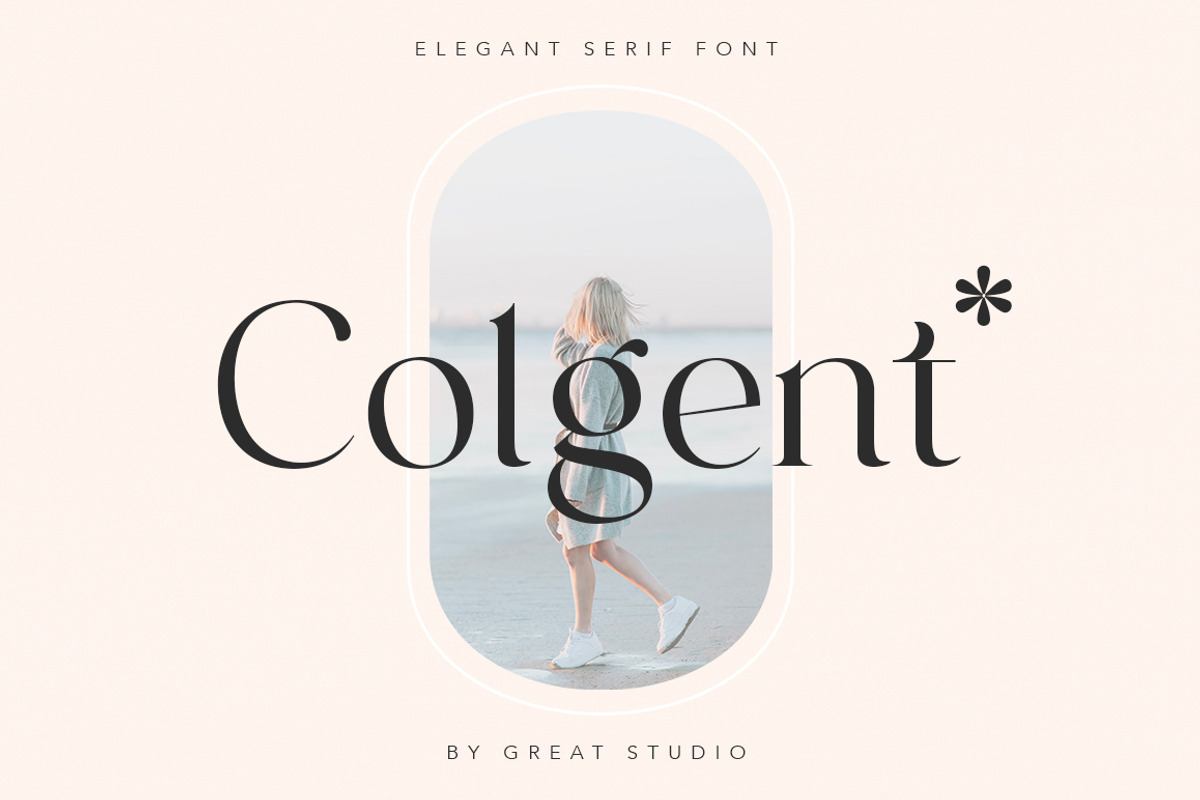
The Colgent Serif Font Free Download is a sophisticated and elegant typeface designed to bring a refined, professional touch to your designs. With its classic serif styling and modern lines, this font is perfect for creating logos, branding materials, editorial layouts, invitations, and more. The Colgent font offers excellent readability while maintaining an upscale and timeless aesthetic, making it ideal for both digital and print media. Whether you're working on business branding, fashion, or creative projects, this font ensures your typography stands out with style and clarity. Please note, for commercial use, a license purchase is required. However, you can easily download the Colgent Serif Font Free Download for free for personal use and explore its potential in your designs. Download the Colgent Serif Font Free Download today and add an elegant and professional touch to your creative projects.